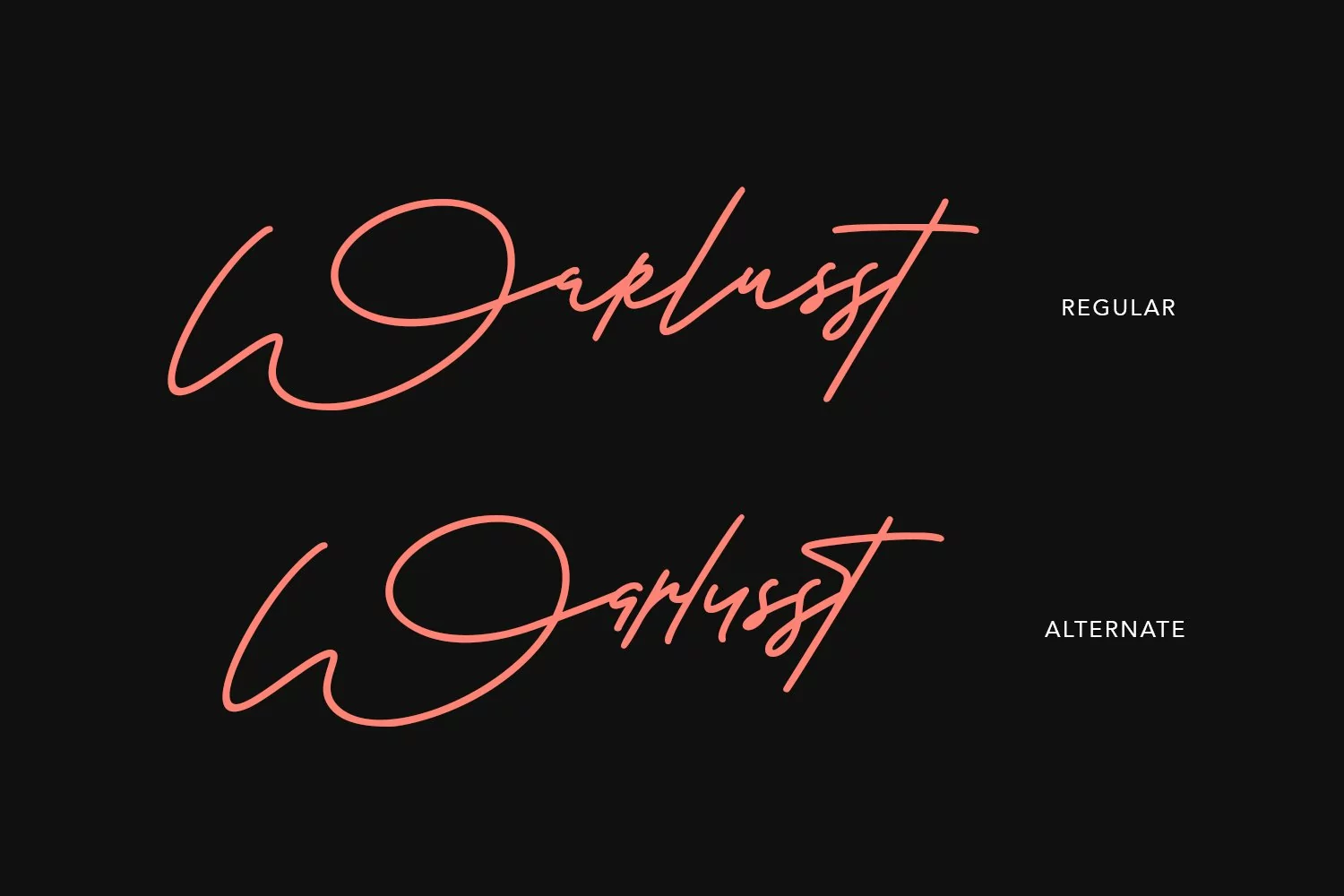
Give your designs an authentic brush handcrafted feel. Warwicks Fancy Signature Font is perfectly suited to signature, stationery, logo, typography quotes, magazine or book cover, website header, flyer, clothing, branding, packaging design and more.